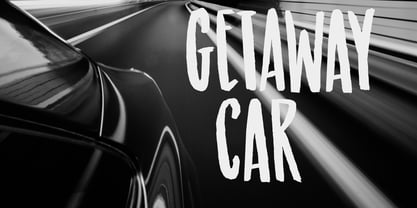
Getaway Car
by Hanoded
About Getaway Car Font Family
When I am working on a new font, I usually play some music, or have a song in my head. When I was working on this font, an Audioslave song called Getaway Car was playing in my head. Again: naming a font is not that difficult! Getaway Car was made with a cheap brush and expensive Chinese ink. It is an all caps font, ideally suited for posters, book covers and designs that need a bold, rough & ready look.
About Hanoded
Hanoded is a type foundry based in The Netherlands and run by David Kerkhoff. After finishing his journalism studies, David traveled extensively and ended up in Israel where he stayed for some years. David had a lot of jobs – zookeeper, goldsmith, artist and cook (to name a few), but settled on working as a tour guide and photographer. David specializes in hand printed typefaces and uses brushes, pens, ink and paint to create his – sometimes scary looking – fonts. He lives in a wee hamlet near the Rhine river, with his wife, three kids, a handful of extremely spoiled chickens and two guinea pigs called Cookie and Chippie.The Premium foundry page can be viewed https://www.myfonts.com/a/font/premium-font-collections/hanoded